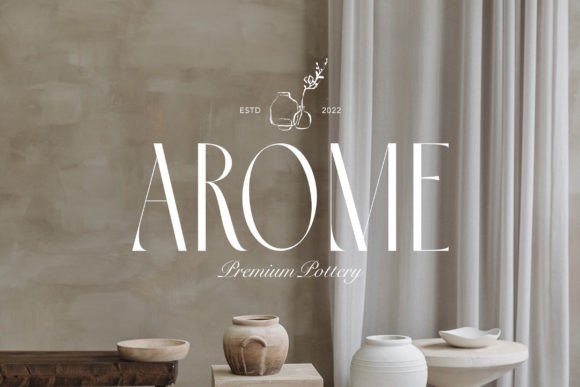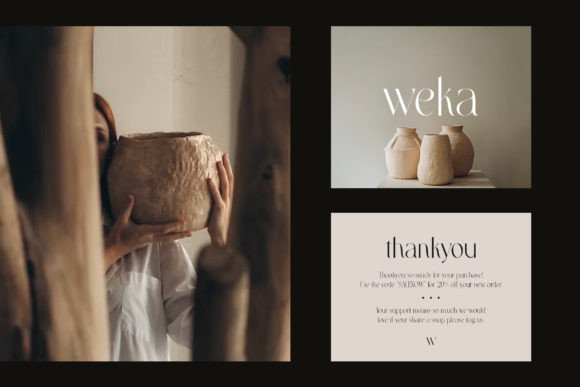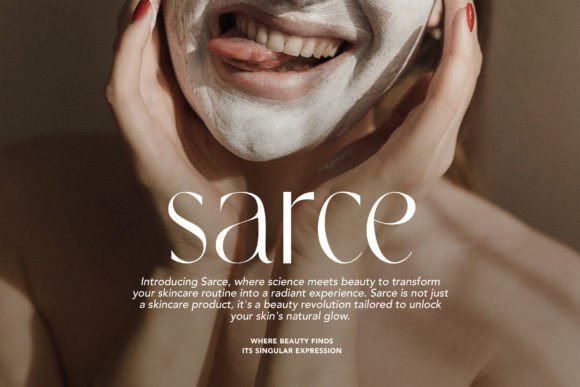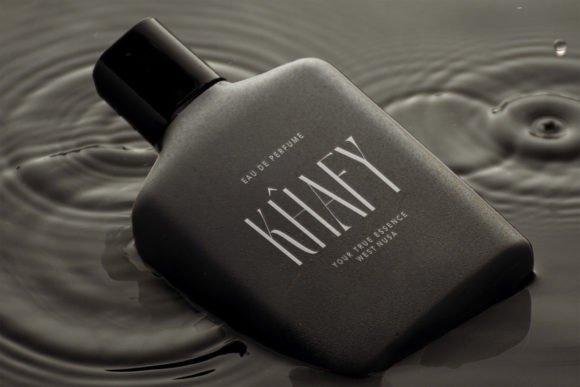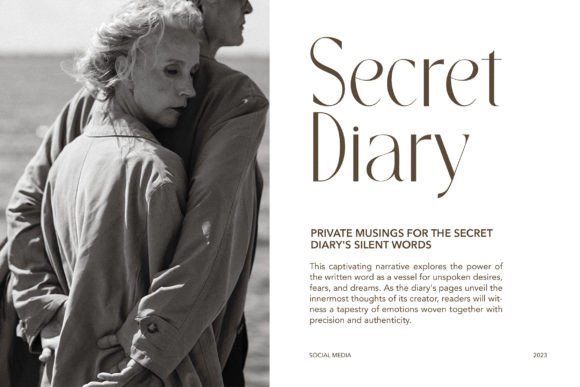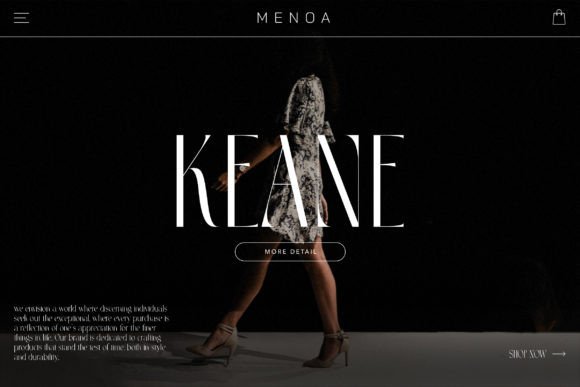
Introduction to Navue Font
The Navue font is a typeface designed with an elegant and feminine style, making it suitable for enhancing the quality of your product branding.
This font is well-suited for various purposes, including displays, printing, branding, and many others .
Key Features of Navue Font